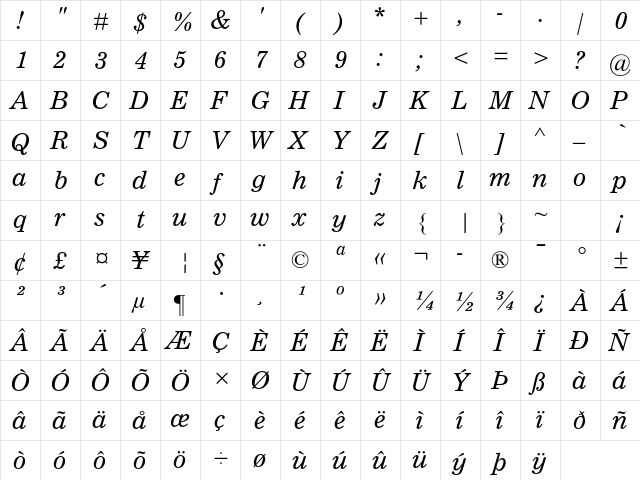
Clarion MT Std Italic
Design Context for Clarion MT Std Typeface
Clarion MT Std offers clean, dependable letterforms without strong stylistic allegiance, making it a practical choice for designers who need flexibility. Its italic angle brings a sense of urgency and motion to the letterforms.
Pro Tip: Use Clarion MT Std for emphasis, pull quotes, and subheadings where its slanted energy can add rhythm to the layout.